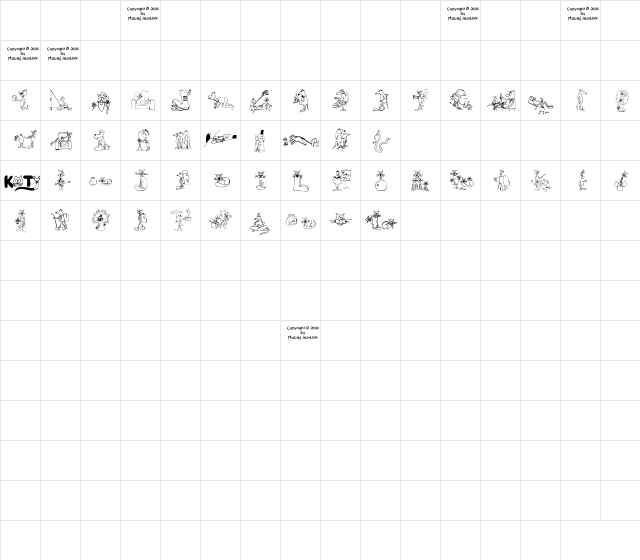
Koty Regular
| Foundry | emStudio Maciej Jezierski |
| Designer | emStudio Maciej Jezierski |
Design Context for Koty Typeface
Koty is a composed and adaptable typeface that performs quietly and consistently across a wide range of design contexts.